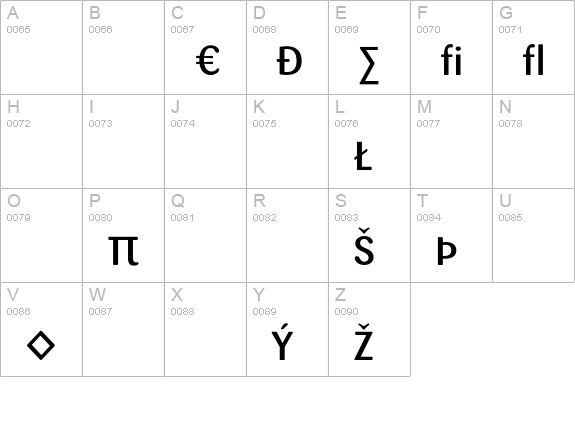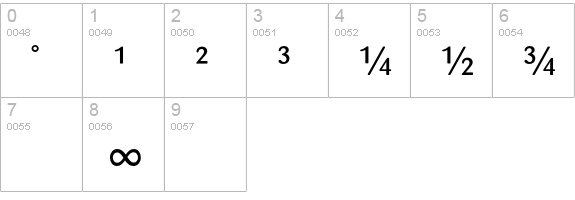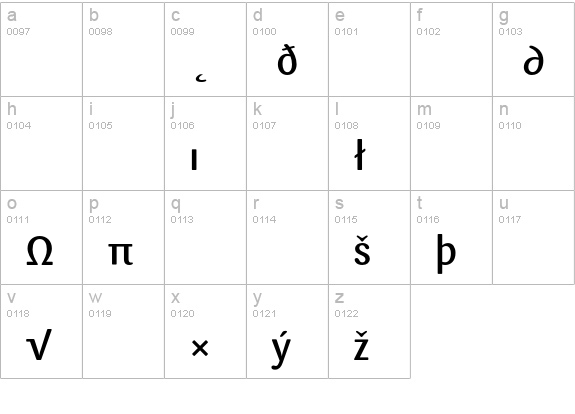
Sari-MediumExp Font Details
Introducing Sari-MediumExp, a captivating font that effortlessly balances elegance and versatility. This font is the perfect choice for those seeking a touch of sophistication combined with a modern twist. With its medium expansion, Sari-MediumExp exudes a harmonious and balanced aesthetic that is sure to catch the eye. Its expertly crafted letterforms showcase a delicate balance of curves and straight lines, resulting in a refined and polished typeface that commands attention. Sari-MediumExp's versatility knows no bounds, as it effortlessly adapts to a variety of design projects. Whether used for headlines, logos, branding, or body text, this font seamlessly integrates into any composition while maintaining its distinctive character. One of the most remarkable aspects of Sari-MediumExp is that it is available for free download at FontsMarket.com. This means that you can easily access and utilize this remarkable font without any financial constraints, allowing your creativity to flourish without limitations. Don't miss out on the opportunity to enhance your designs with the elegance and flexibility of Sari-MediumExp. Download this font today from FontsMarket.com and elevate your typographic creations to new heights.